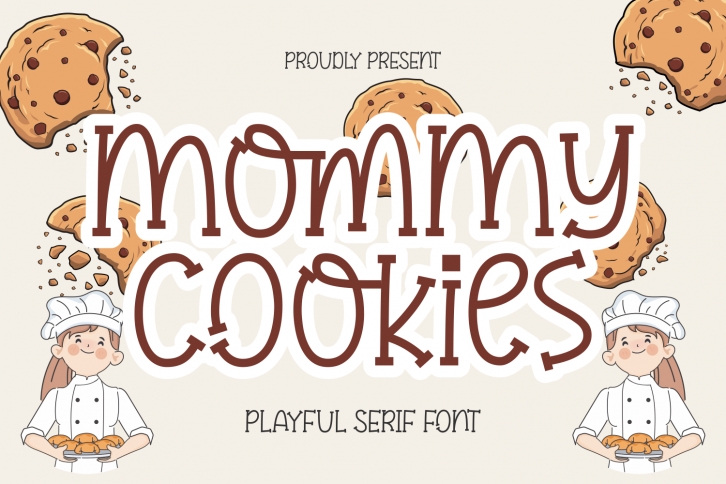
Mommy Cookies is a font that’s exactly what it sounds like: a playful, funky and unique typeface that’s carefully created with love, just like a mom’s cookies. Use it for your own delicious designs!